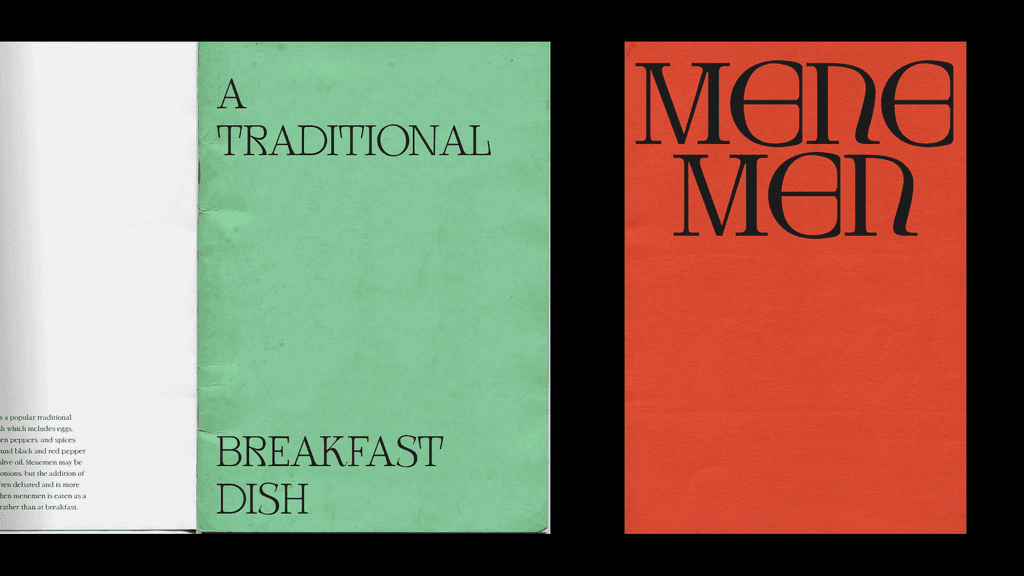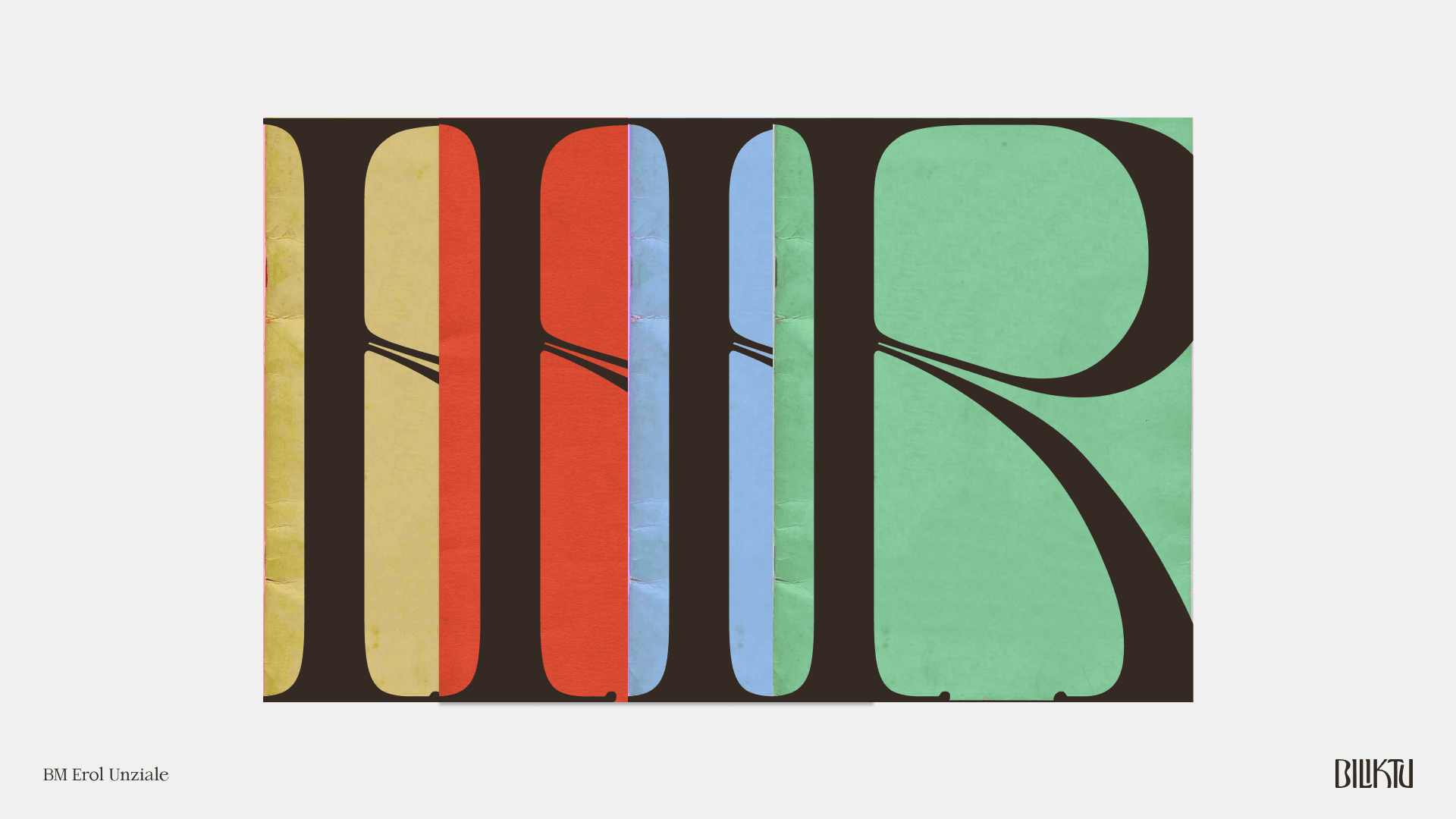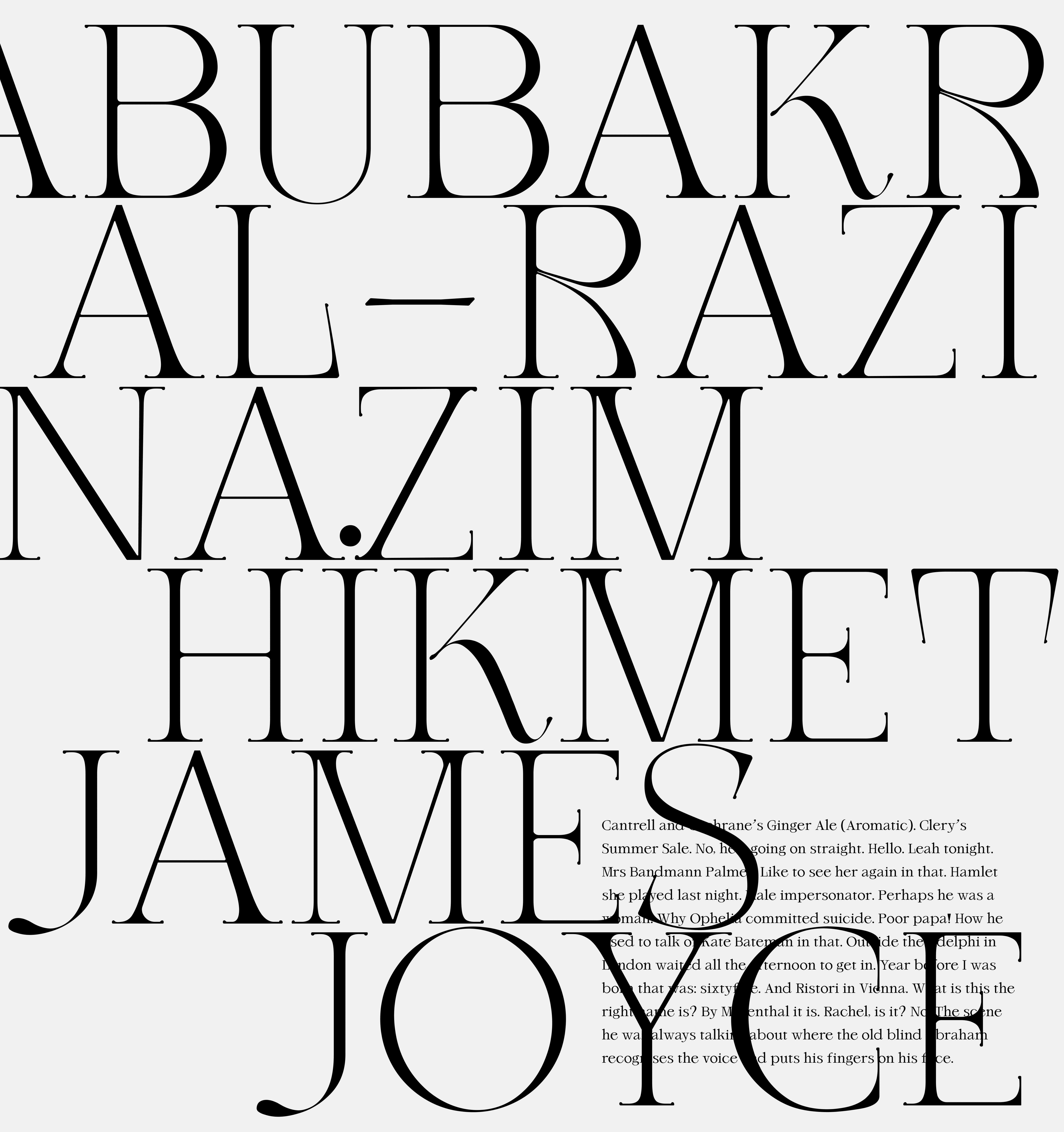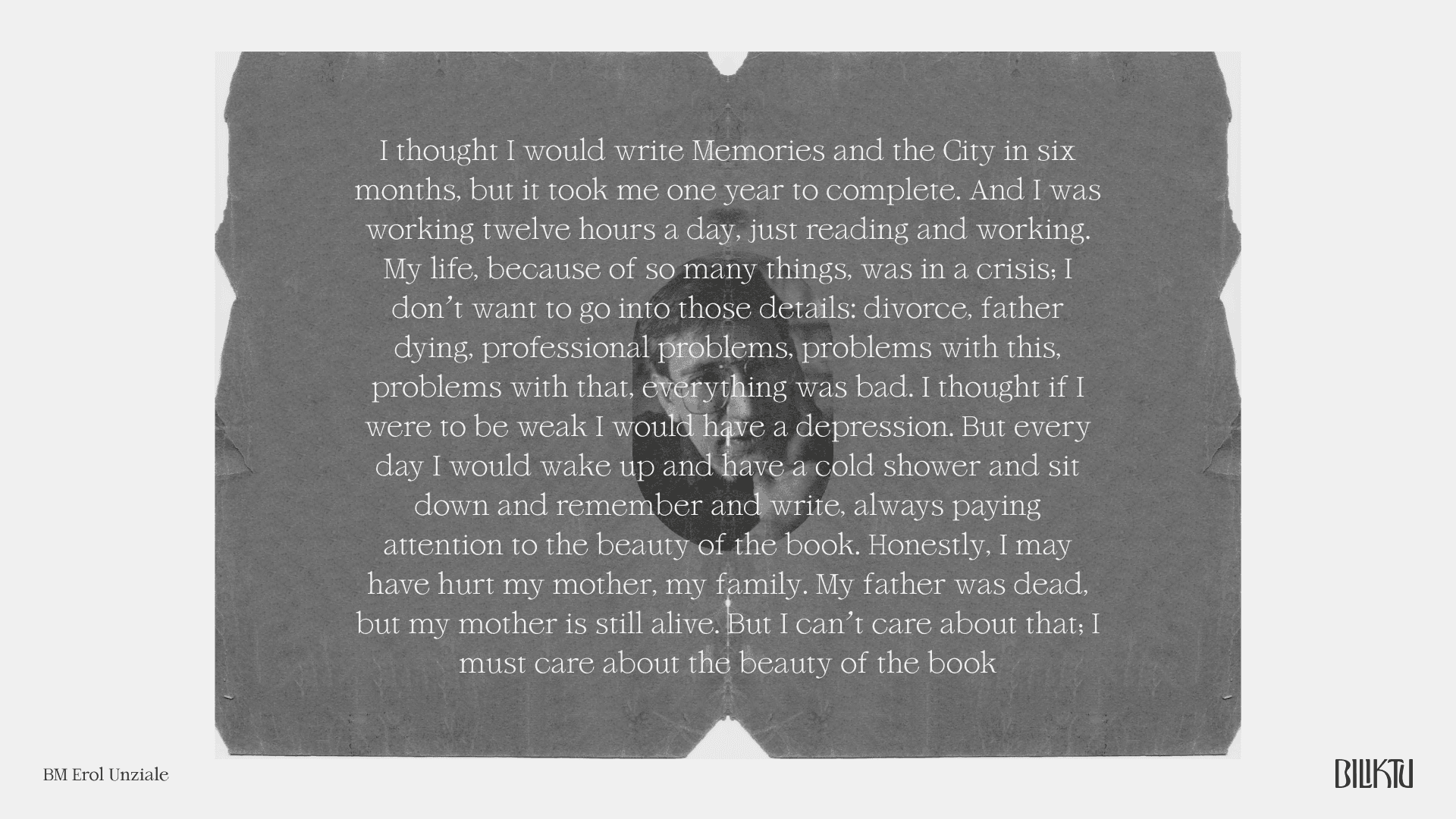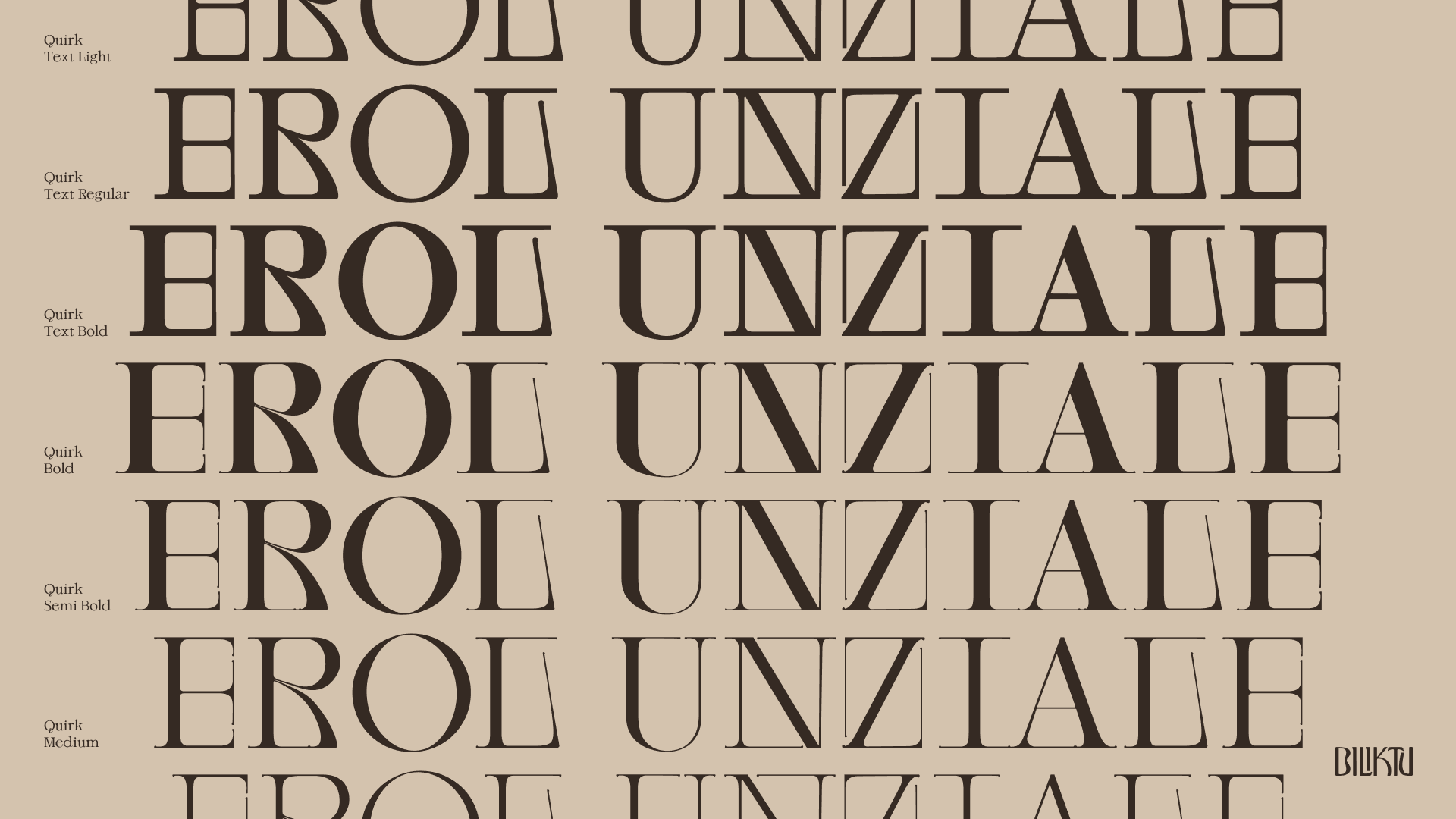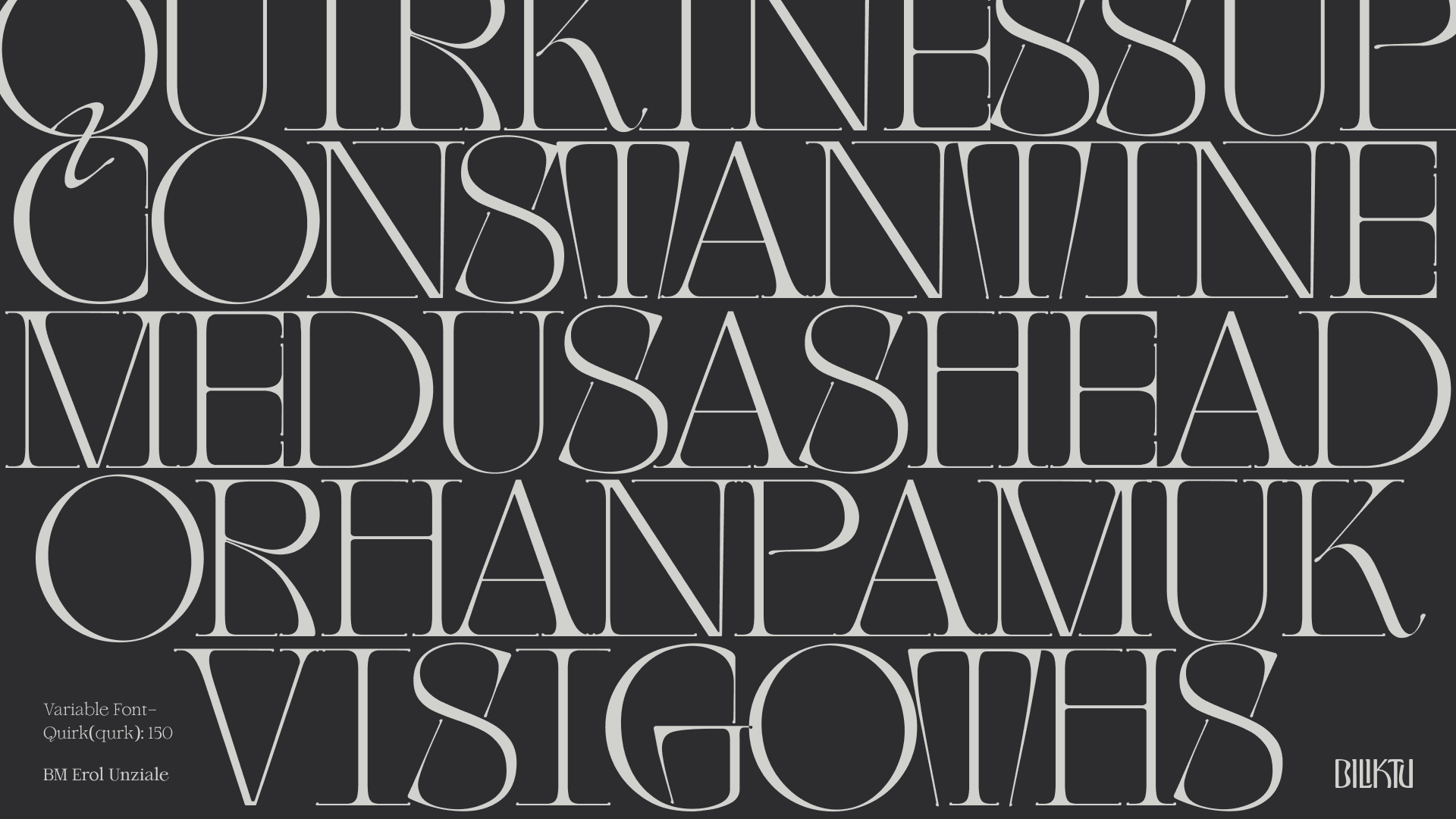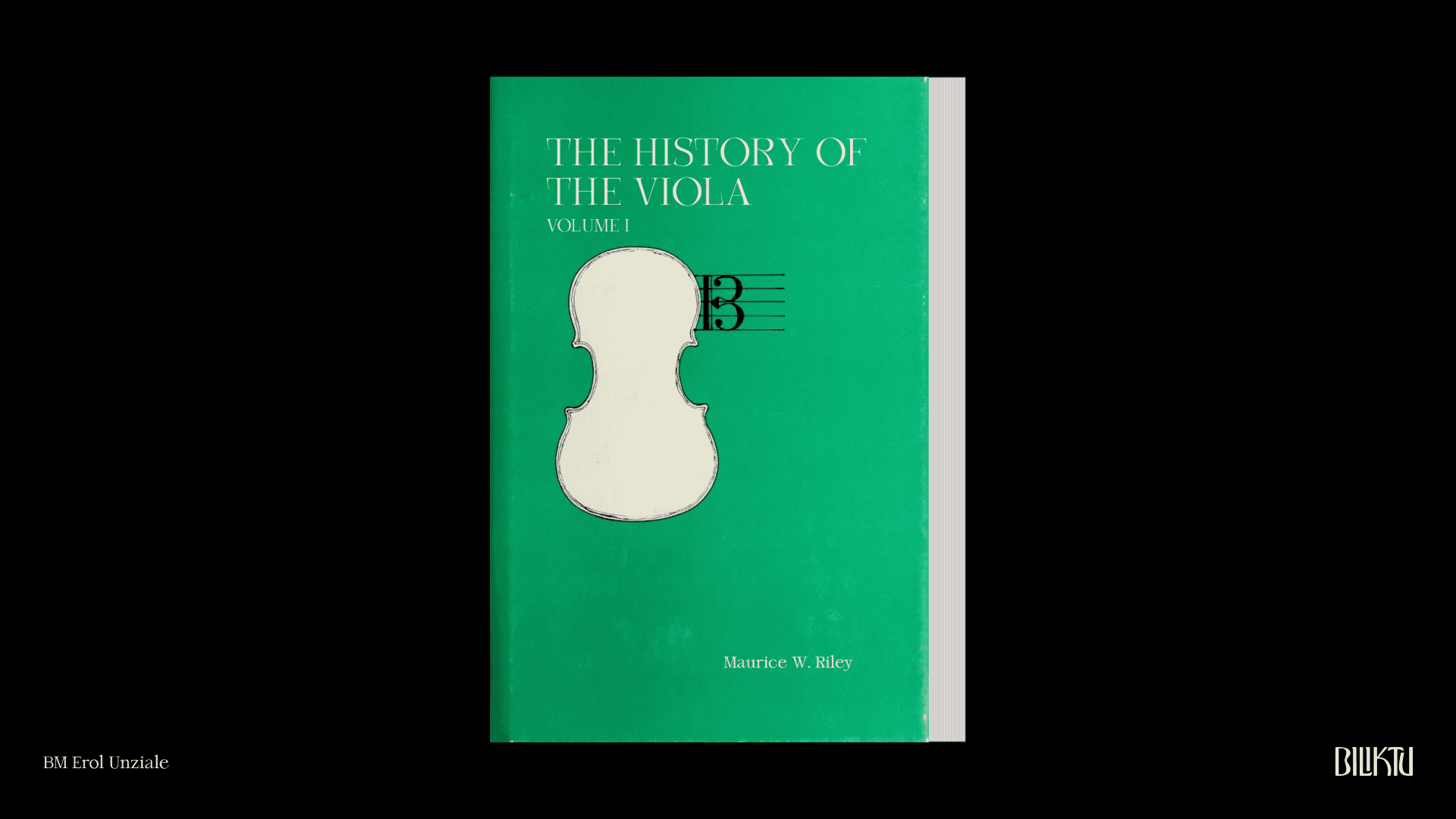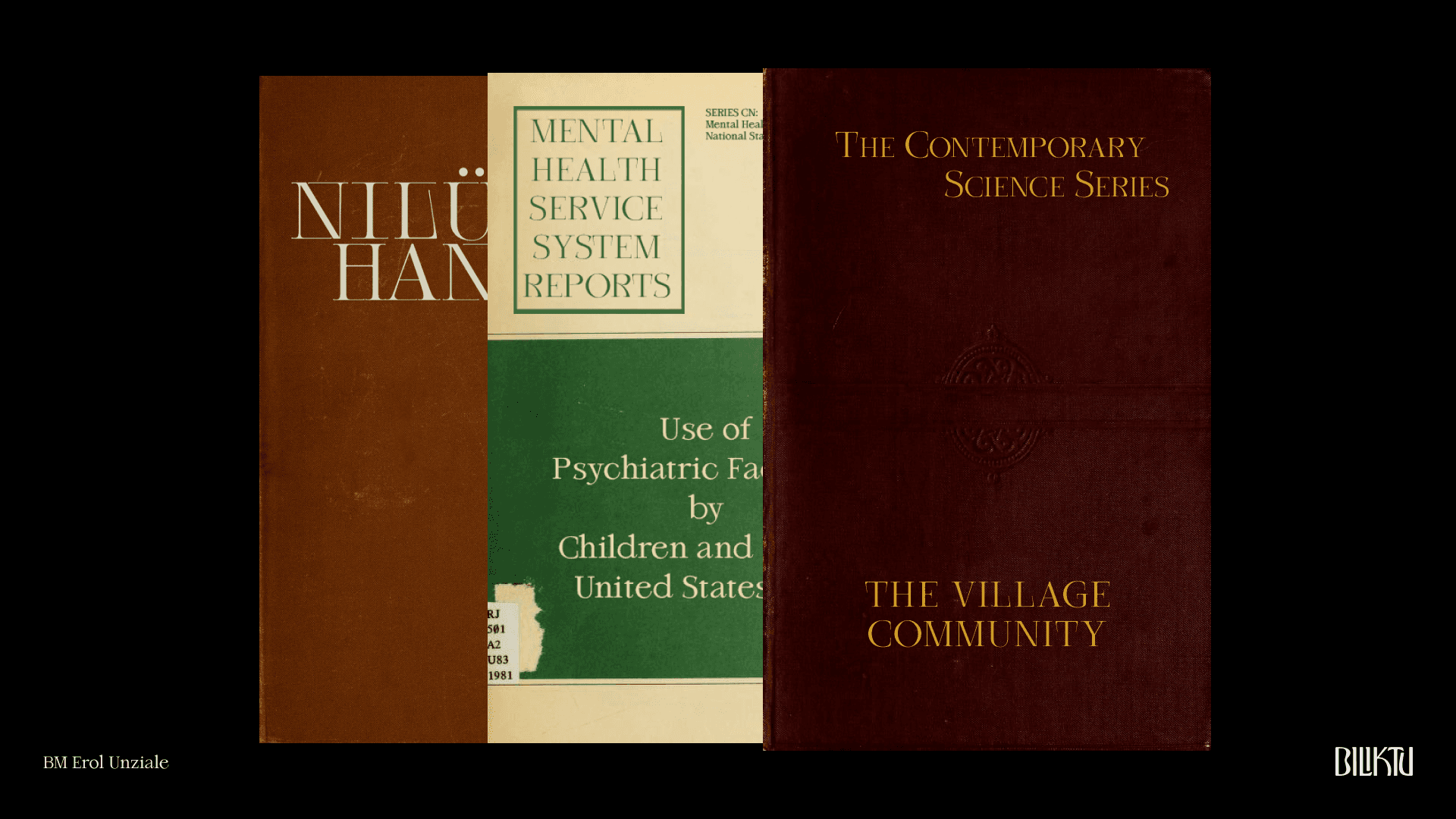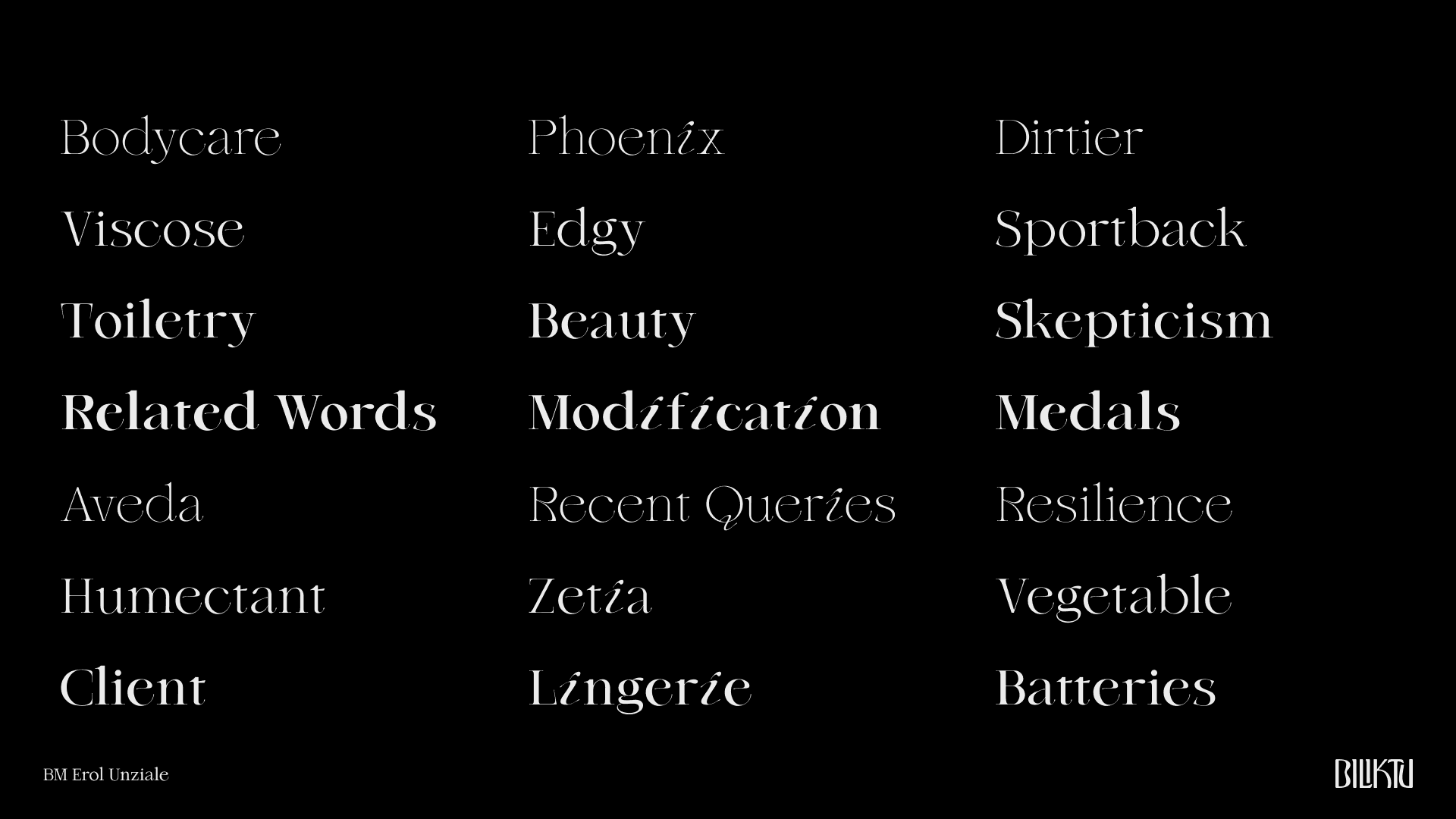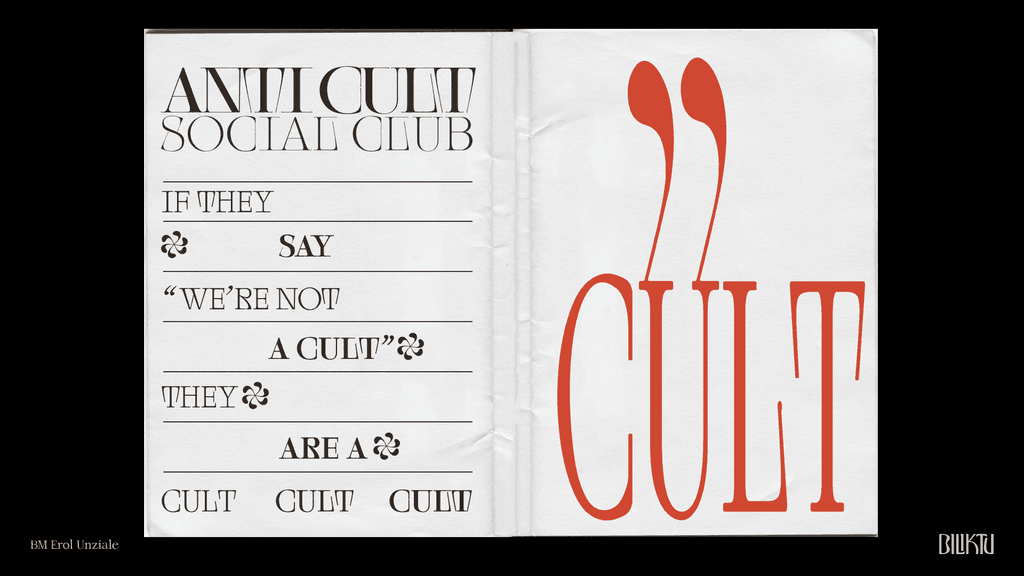
A fresh take on an Uncial typeface. Inspired by Erol Büyükburç's 1976 record cover font (designed by Walter Haettenschweiler).
I was immediately fascinated with the font, Breitfette Unziale, used for Erol Büyükburç's Hop Dedik album cover. It started me thinking about how I could make it more legible and modern. This is how Erol Unziale came to be.
Available Silhouettes: Regular, Medium, Semibold, Bold, Text Light, Text Regular, Text Bold